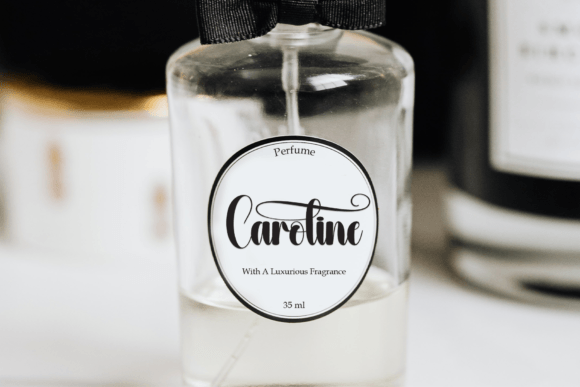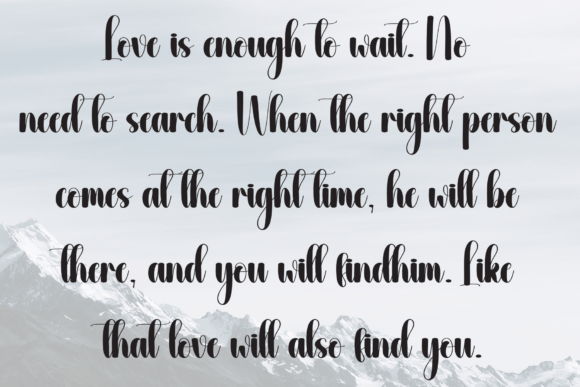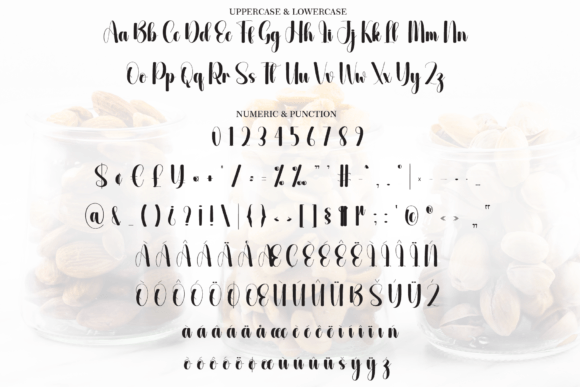
Introduction to Snackjar Font
Have you ever been browsing through design inspiration boards, and a single font catches your eye, making you pause and imagine the countless possibilities it could bring to your next creative project? For me, that moment happened when I stumbled upon the elegant Snackjar Font. Its sophisticated script style immediately stood out, and I couldn’t wait to explore its potential.
As designers, we’re always on the lookout for high-quality design resources that can elevate our work. And that’s exactly what Snackjar Font offers – a stylish and incredibly elegant script font perfect for adding a handwritten touch to our designs. Whether it’s a wedding invitation, a thank you card, or a logo, this font is sure to make a lasting impression.
Key Features of Snackjar Font
- The Snackjar Font is a high-quality design resource, perfect for creative projects that require a unique touch.
- This font features a transparent background, allowing for seamless integration with any design element.
- What sets the Snackjar Font apart is its unique, hand-drawn style, which adds a personal touch to any design project.
Honest Review: Snackjar Font
As a designer, I’m always on the lookout for high-quality design resources to enhance my creative projects. Recently, I stumbled upon the Snackjar Font, and I must say it’s been a pleasant surprise.
What works well: ✨ The font is incredibly versatile, making it perfect for a wide range of design projects. Its modern and playful style is sure to add a unique touch to any layout. Additionally, the font is available for free download, which is always a bonus.
Here are some of the key features that make Snackjar Font stand out:
- High-quality design that’s perfect for digital and print projects
- Transparent background, making it easy to use on any background
- Comes in a range of weights and styles, giving you plenty of options for customization
⚠️ However, I do have to mention that the font may not be suitable for all design projects. Some users may find the font too playful or distracting, especially for more formal or professional projects.
Overall, I’m thoroughly impressed with the Snackjar Font. Its high quality, versatility, and free download make it a valuable addition to any designer’s toolkit.
Tips for Getting the Most Out of Snackjar Font
To get the most out of the Snackjar Font, experiment with different font sizes, colors, and combinations. The font’s versatility makes it perfect for a wide range of creative projects.
Common Use Cases for Snackjar Font
The Snackjar Font is commonly used in graphic design, digital art, and creative writing projects. Its unique design and high quality make it a popular choice among designers and artists.
Pacifico is a beautiful, elegant script font perfect for adding a touch of sophistication to your design project. It features a high-quality design with a transparent background, making it ideal for creative projects that require a subtle yet stylish look. When to use: wedding invitations, branding, and high-end marketing materials. Compared to Snackjar Font, Pacifico has a more refined and polished look, making it suitable for more formal designs.